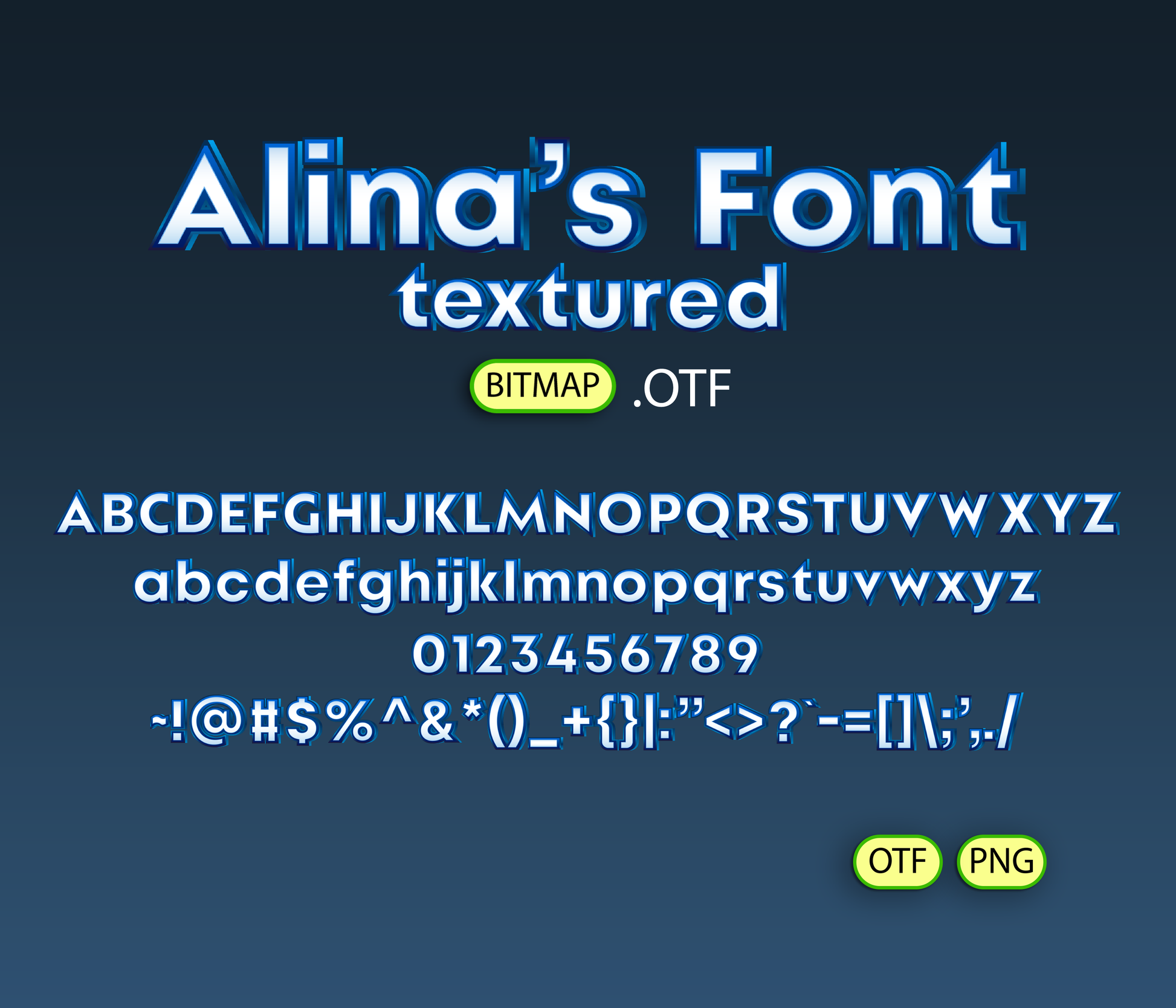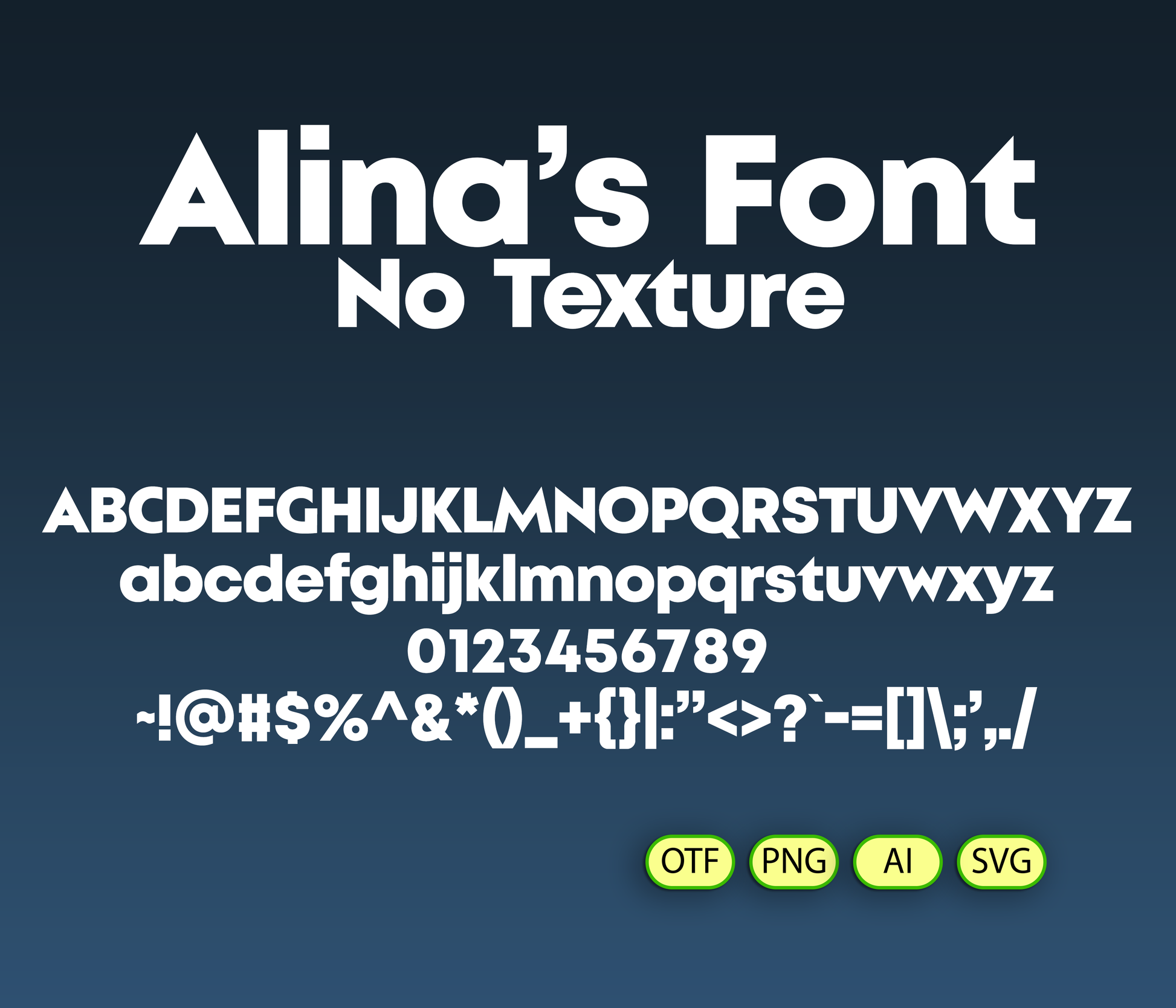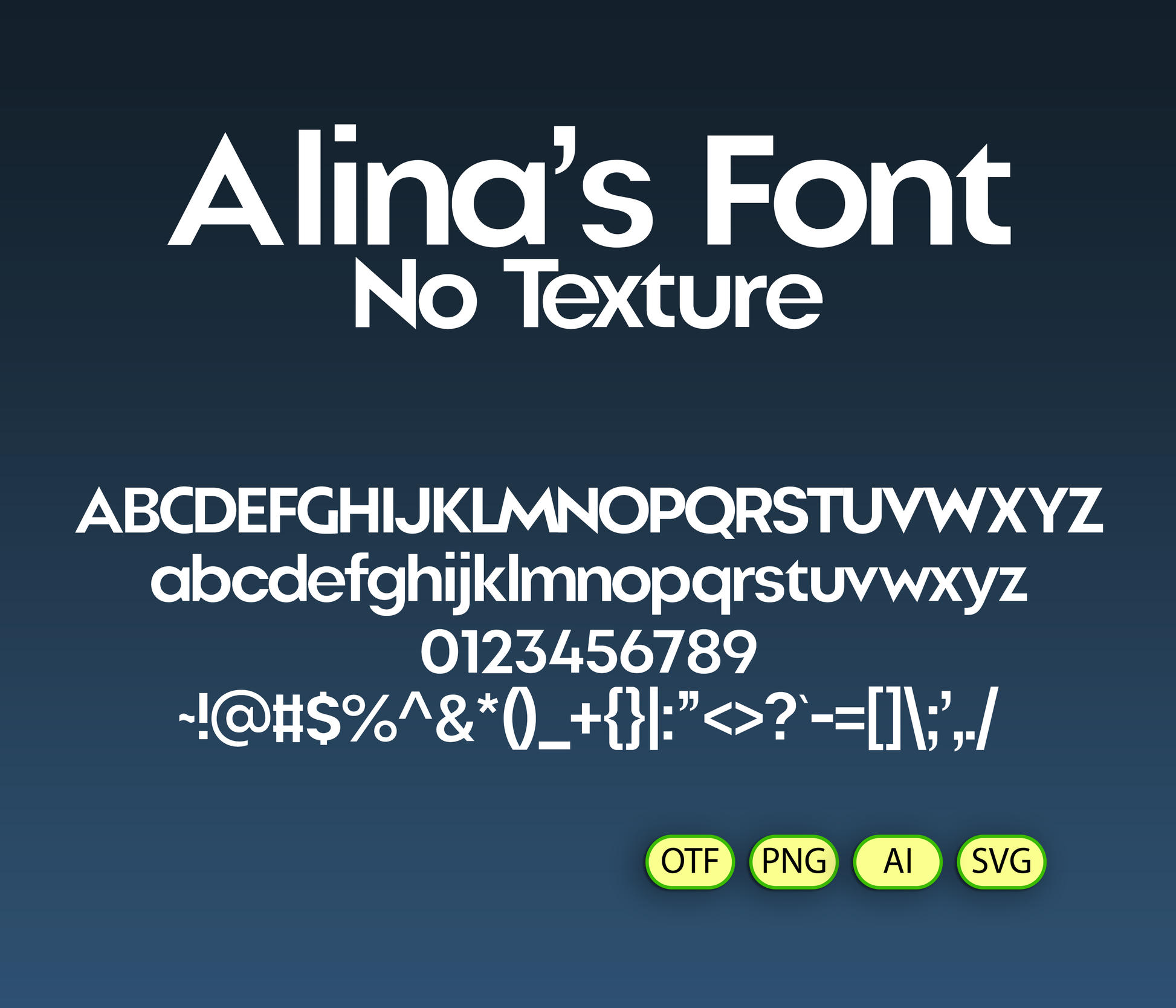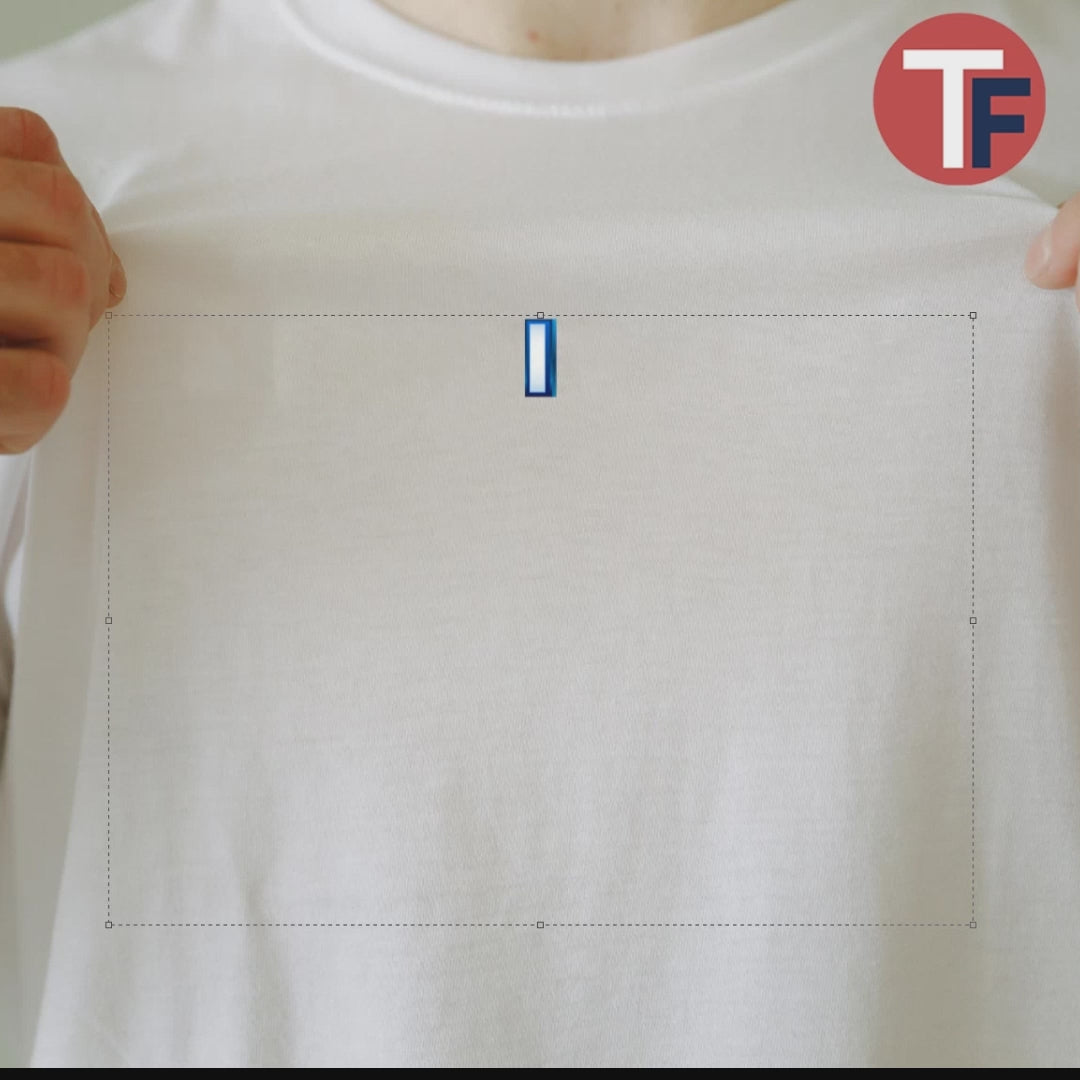
Genius Nemesis Series Vs. The Villainous Alliance Font Textured
Genius Nemesis Series Vs. The Villainous Alliance Textured Font 2024
Unleash your creativity with the Genius Nemesis font, a dynamic and bold typeface inspired by the brilliance of Animation's most clever supervillain-turned-hero. This font encapsulates the essence of a character's journey, from mischievous plots to ultimate redemption, blending elements of heroism with a dash of villainy. Perfect for fans, creators, and anyone looking to infuse their projects with humor, intelligence, and unique style, this font invites you to explore the endless possibilities of design, much like our protagonist experiments with inventions.
What font is the 'Genius Nemesis' font?
This question unveils a typeface that reflects the sleek, futuristic aesthetics of the movie, combined with the quirky personality of its characters. With its sharp, angular lines and playful curves, the font mirrors inventive gadgets and the metropolitan backdrop of a bustling city. Designed to be as versatile and expressive as the main character's own transformations, it includes an extensive character set that allows for a wide range of creative expressions, enabling you to convey messages with the same impact and flair that our hero brings to his endeavors.
The Genius Nemesis font is incredibly versatile, suitable for a variety of creative and promotional projects:
1. Movie Posters and Fan Art: Create captivating designs that celebrate iconic moments and characters of the film.
2. Merchandise Design: Ideal for T-shirts, posters, mugs, and more, allowing fans to showcase their love for the movie.
3. Social Media Campaigns: Stand out with engaging content that captures the witty and adventurous spirit of the story.
4. Event Invitations: Design unique invites for movie-themed parties, screenings, or comic book conventions.
5. Educational Materials: Add a fun twist to presentations or projects with a font that's as engaging as it is readable.
6. Website Design: Perfect for fan sites, blogs, or online stores catering to animation enthusiasts.
7. Packaging Design: For movie-themed products or special edition releases, adding a memorable and distinctive look.
8. Digital Content Creation: Thumbnails, banners, and graphics for content creators discussing animation, movie analysis, or character design.
• Comprehensive Character Set: Equipped with an extensive array of characters to support creative projects, from simple text-based designs to elaborate compositions requiring special symbols.
The Genius Nemesis font is not merely a set of characters; it's an invitation to embrace the genius within, encouraging you to explore the boundaries of imagination and creativity. Whether used for personal projects, fan communities, or commercial endeavors, this font adds a layer of excitement and engagement, making every creation a vibrant tribute to the wit, humor, and heart of an unforgettable animated hero. Dive into the world of a bustling metropolis, and let your designs capture the essence of its most memorable character.